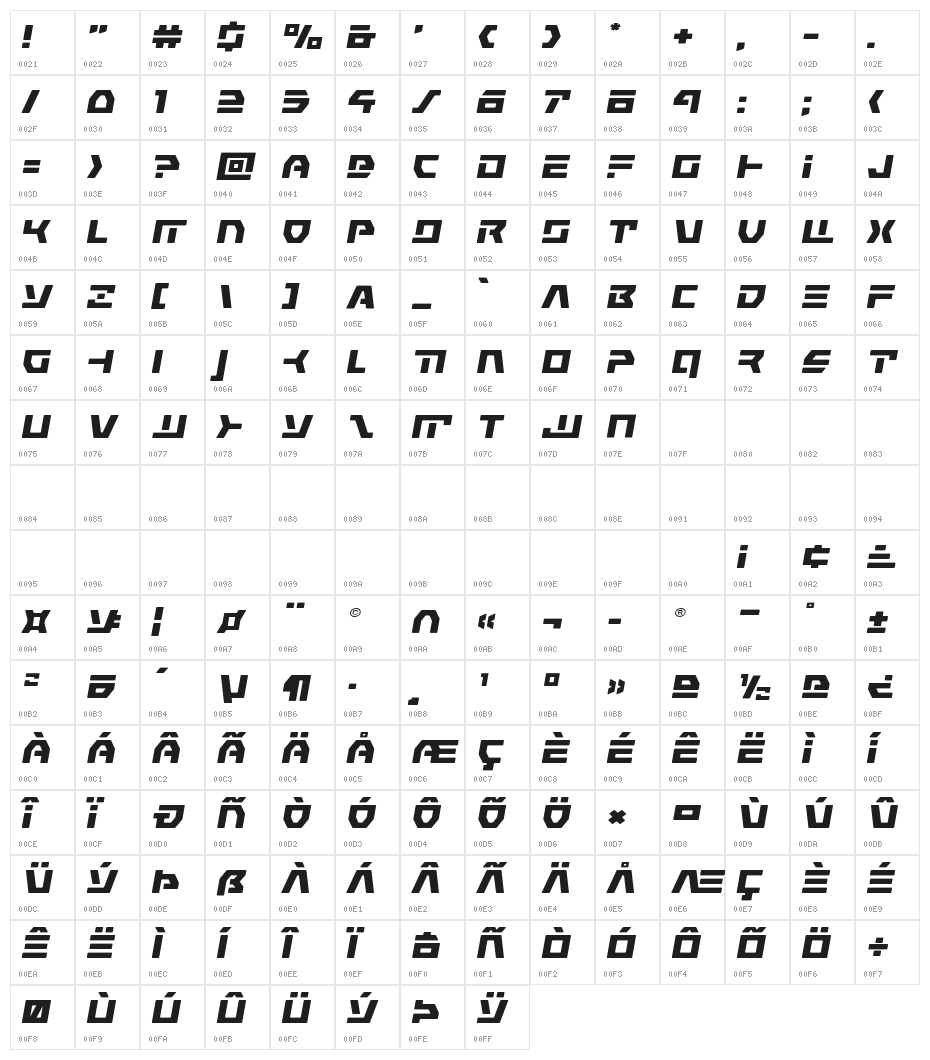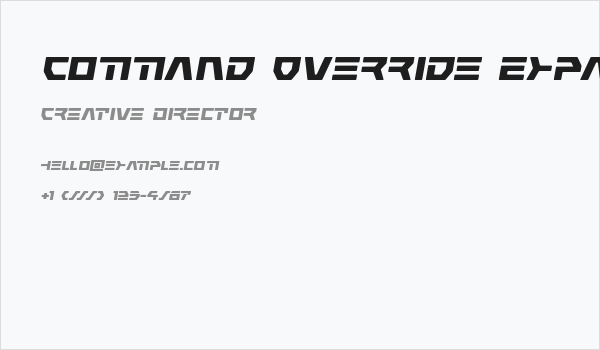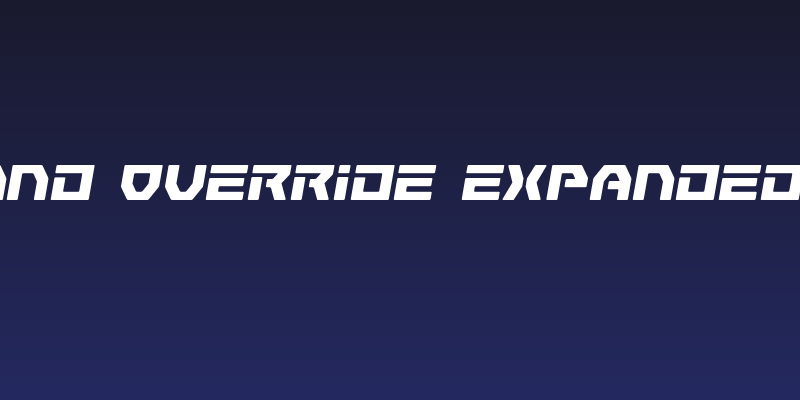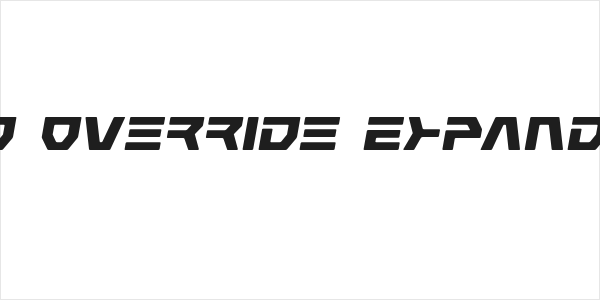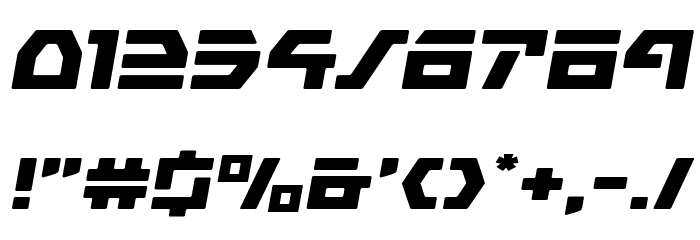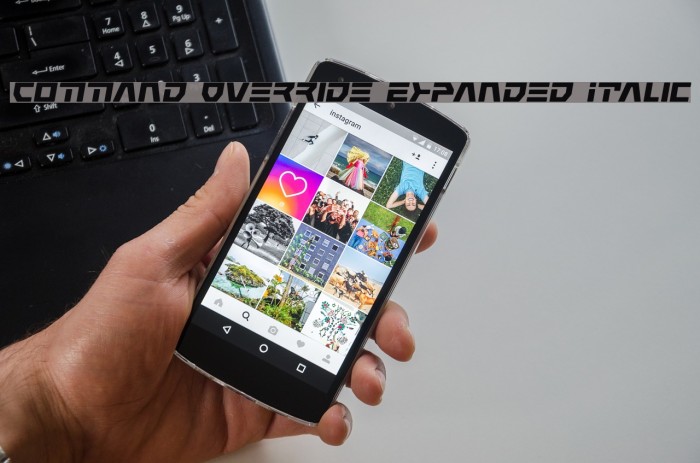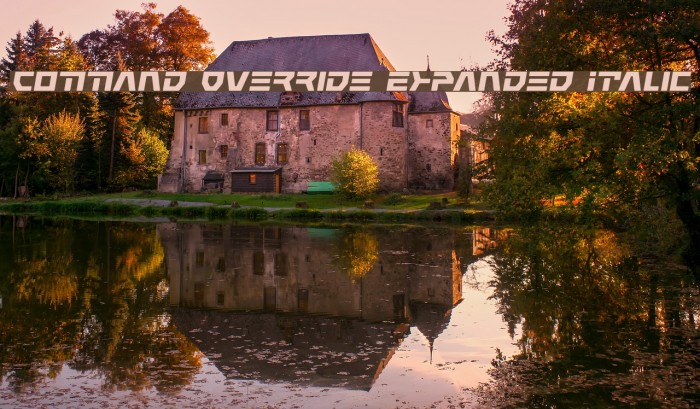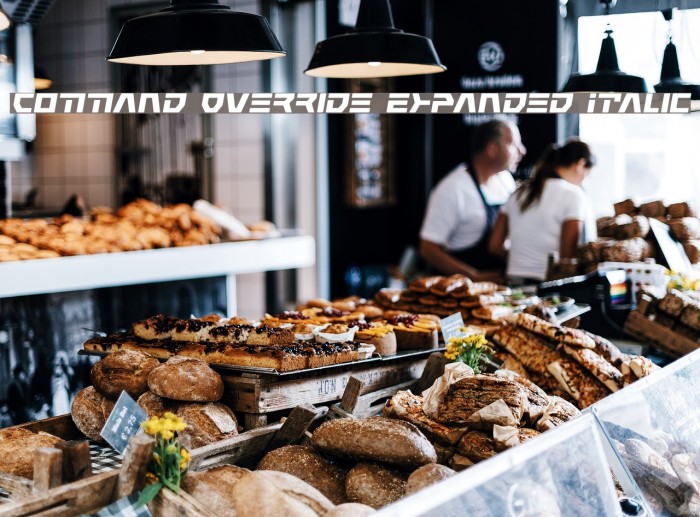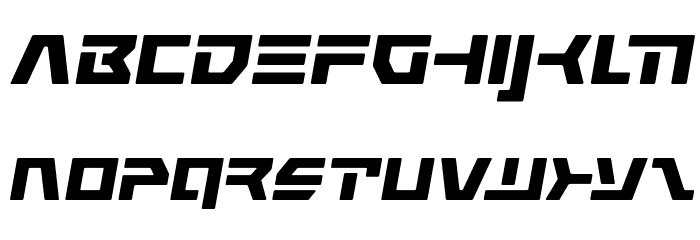
Command Override Expanded Italic Font
Command Override Expanded Italic Description
This font features a bold, futuristic design with angular, geometric shapes that create a sense of movement and energy. The characters are expanded and italicized, giving them a dynamic, forward-leaning appearance. The strokes are thick and consistent, contributing to a high contrast between the characters and the background. The overall style is modern and edgy, suitable for projects that require a strong visual impact. The unique design of each letter and number makes it ideal for attention-grabbing headlines or logos.
| Proposed Projects | Ideal for sci-fi themed designs, technology branding, video game titles, and dynamic posters. |